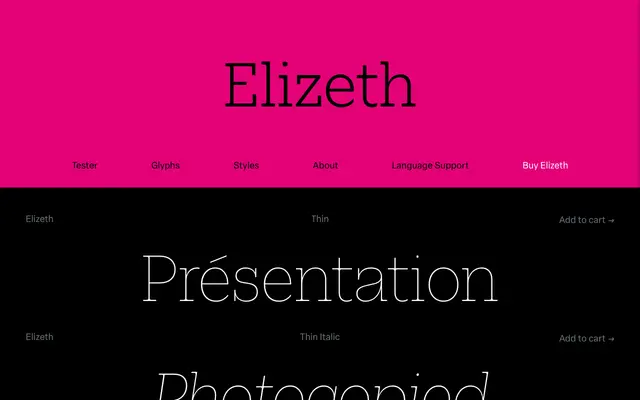
Elizeth
Blackletra · Daniel Sabino · 2020
A geometric slab with bracketed serifs designed by Daniel Sabino, referencing early twentieth-century rationalist type in the vein of Rockwell.
Designed by Daniel Sabino and released in 2020, Elizeth spans seven weights from Thin to Extrabold with true italics across the full range, totalling fourteen styles. The normal-width family is complemented by Elizeth Condensed, giving the system two widths for varied layout demands. OpenType features include small capitals, old-style figures and tabular figures, alongside broad Latin language coverage spanning several hundred languages.
Elizeth is explicitly described as a geometric slab that evokes early twentieth-century rationalism and draws comparison to Rockwell, while using bracketed serifs rather than unbracketed ones.